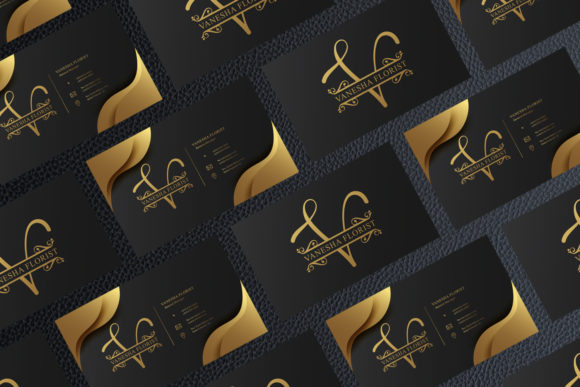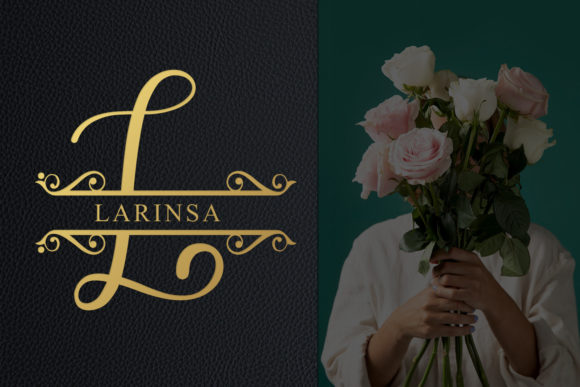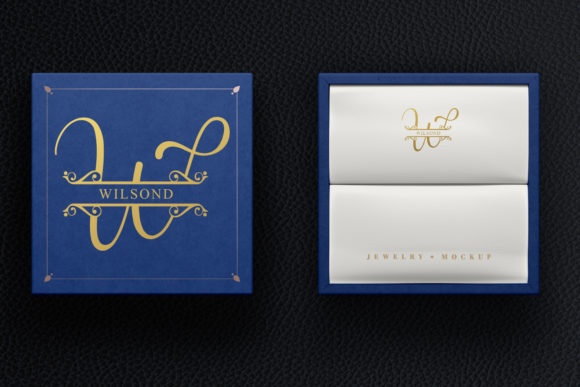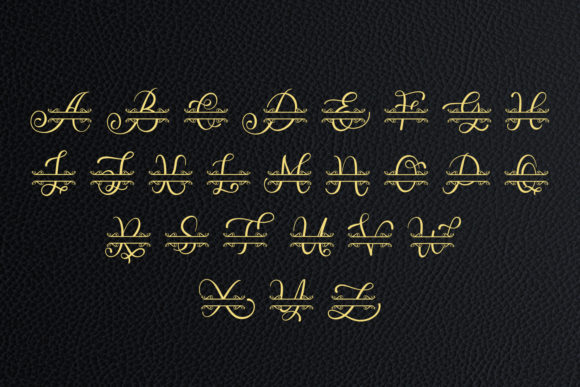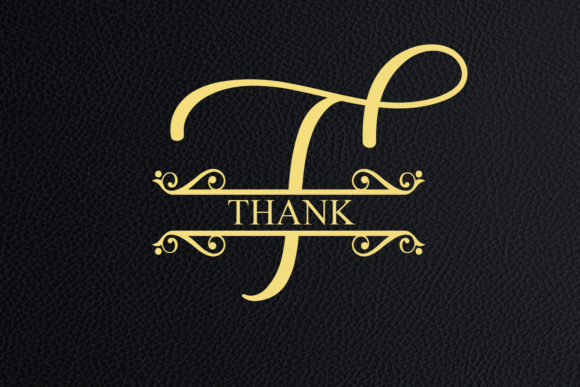
Whispers of Love: Unveiling the Enchanting Avica Monogram Font
Do you remember the first time you fell in love with a font? Perhaps it was the elegant script that adorned your grandmother’s wedding invitation, or the whimsical cursive that danced across the pages of a favorite novel. For many of us, the world of typography is a place where creativity and romance collide, and today, we’re thrilled to introduce you to a font that will capture your heart – the Avica Monogram Font.
Designed to add a touch of whimsy and elegance to your designs, the Avica Monogram Font is a dainty and unique decorative font that’s perfect for love letters, wedding invitations, and other special occasions. Whether you’re a seasoned designer or a creative enthusiast, this font is sure to become a treasured addition to your digital arsenal.
- Unique Characteristics: Avica Monogram Font features a unique monogram design, perfect for creating custom logos, branding, and personalized stationery.
Review of Avica Monogram Font
Overall, I think Avica Monogram Font is a unique and stylish addition to any design project. Here’s what I like about it:
- ✨ It’s perfect for adding a touch of elegance to invitations, stationery, or luxury branding.
- ✨ The font’s monogram style makes it versatile for various applications, from logos to text overlays.
- ✨ The font’s scalability is impressive, with no significant loss of quality at larger sizes.
- ⚠️ The font’s design may not be suitable for projects that require a more modern or minimalist aesthetic.
- ⚠️ Some users may find the font’s curves and lines to be slightly too elaborate for certain applications.
Overall, I think Avica Monogram Font is a solid choice for designers who want to add a touch of sophistication to their projects. While it may not be the best fit for every design task, its unique style and versatility make it a valuable addition to any font collection.
Getting the Most Out of Avica Monogram Font
Use the Avica Monogram Font to create unique and stylish designs. Experiment with different font sizes, colors, and combinations to create visually appealing effects. Use the font to add a touch of elegance and sophistication to your designs.
The Avica Monogram Font is ideal for creating custom logos, typography, and designs for various industries, including fashion, beauty, and lifestyle. Use the font to create monograms, logos, or other designs for business cards, invitations, and other marketing materials.